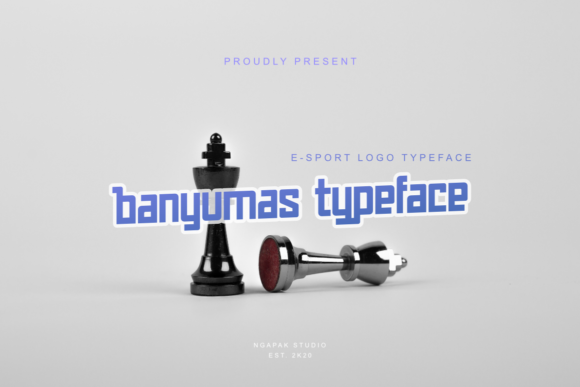
Banyumas Font: Elevate Your Design with a Modern Display Style
In the world of digital design, fonts play a crucial role in conveying the tone and aesthetic of a brand or project. For designers and crafters looking for a modern display font that exudes a stiff and cool style, Banyumas Font is an excellent choice. This versatile typeface is perfect for a wide range of applications, from e-sport logo projects to branding, advertising, and more.
What is Banyumas Font?
Banyumas Font is a modern display font designed to make a statement. Its stiff and modern style gives it a unique edge, making it ideal for projects that require a bold and contemporary look. The font’s clean lines, precise curves, and geometric shapes create a visually appealing aesthetic that is sure to grab attention.
Key Features of Banyumas Font
• Modern Display Style: Banyumas Font boasts a modern display style that is perfect for projects that require a bold and edgy look.
• Stiff and Cool Aesthetic: The font’s stiff and cool aesthetic makes it ideal for e-sport logo projects, tech branding, and other modern applications.
• Versatile: Banyumas Font is perfect for a wide range of projects, including branding, logo design, social media posts, advertisements, product packaging, and more.
• Easy to Read: Despite its modern and bold style, Banyumas Font remains easy to read, making it perfect for use in various design applications.
Use Cases for Banyumas Font
Banyumas Font is a versatile typeface that can be used in a variety of design projects, including:
• E-Sport Logo Projects: The font’s modern and stiff style makes it perfect for e-sport logo projects that require a bold and edgy look.
• Branding Projects: Banyumas Font is ideal for branding projects that require a modern and contemporary aesthetic.
• Social Media Posts: The font’s clean and bold style makes it perfect for social media posts that require a modern and attention-grabbing look.
• Advertisements: Banyumas Font is perfect for advertisements that require a bold and eye-catching aesthetic.
• Product Packaging: The font’s modern and stylish look makes it ideal for product packaging designs that require a contemporary aesthetic.
• Label and Photography: Banyumas Font can also be used for label designs and photography projects that require a modern and stylish look.
• Watermark and Invitation: The font’s elegant and modern style makes it perfect for watermark designs and invitation projects.
• Stationery: Banyumas Font is also suitable for stationery designs that require a modern and professional look.
Why Choose Banyumas Font?
Banyumas Font is an excellent choice for designers and crafters looking for a modern display font that exudes a stiff and cool style. Here are some reasons why:
• Unique Aesthetic: Banyumas Font offers a unique aesthetic that sets it apart from other fonts.
• High-Quality Design: The font is designed with high-quality and precision, ensuring that it looks great in various design applications.
In conclusion, Banyumas Font is a modern display font that offers a stiff and cool style, perfect for a wide range of design projects. Its versatility, unique aesthetic, and high-quality design make it an excellent choice for designers and crafters looking for a font that can elevate their designs. Whether you’re working on an e-sport logo project, branding, or advertising, Banyumas Font is a great choice.